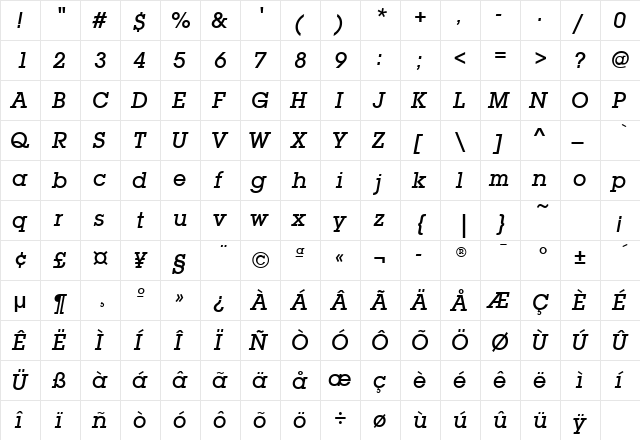
LubalinGraphMdITCTT Oblique
Design Context for LubalinGraphMdITCTT Typeface
LubalinGraphMdITCTT is a composed and adaptable typeface that performs quietly and consistently across a wide range of design contexts. Its italic angle brings a sense of urgency and motion to the letterforms.
Pro Tip: Try LubalinGraphMdITCTT for annotation and caption copy alongside an upright companion — the contrast in angle creates a dynamic but ordered typographic system.